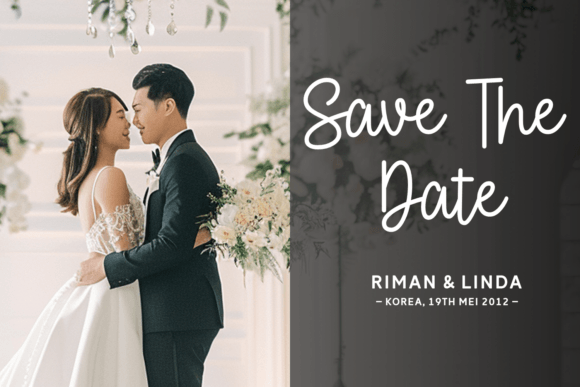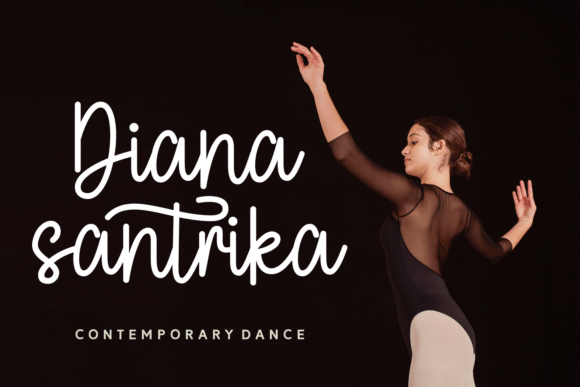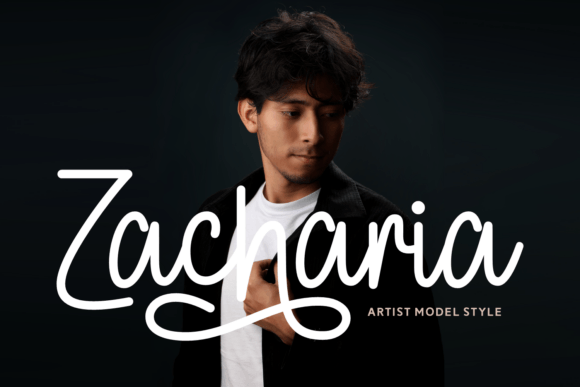
Bysta Font: Adding a Personal Touch to Your Designs
In the world of typography, fonts play a crucial role in conveying the tone and personality of a brand or design. For designers and crafters looking to add a warm, personal touch to their work, Bysta font is an excellent choice. This lively script font boasts a friendly, hand-drawn look that’s perfect for creating signs, logos, product labels, and more.
The Characteristics of Bysta Font
Bysta font is characterized by its casual, market-style feel. The letters are smooth and flowing, giving it a relaxed, welcoming vibe that’s hard to resist. The font’s hand-drawn look adds a touch of whimsy and approachability, making it ideal for designs that require a personal touch. Whether you’re creating a logo for a small business, designing a label for a craft product, or crafting a sign for a market stall, Bysta font is sure to make your design stand out.
What Makes Bysta Font Special?
So, what sets Bysta font apart from other fonts? Here are a few key features that make it a standout choice:
- Hand-drawn look: Bysta font has a unique, hand-drawn look that’s full of character and personality.
- Smooth and flowing letters: The letters in Bysta font are smooth and flowing, giving it a relaxed, welcoming vibe.
- Casual, market-style feel: Bysta font has a casual, market-style feel that’s perfect for creating signs, logos, and product labels.
- Warm and personal: Bysta font adds a warm, personal touch to any design, making it perfect for crafters and small business owners.
Using Bysta Font in Your Designs
Bysta font is incredibly versatile and can be used in a wide range of designs. Here are a few ideas to get you started:
- Signs: Use Bysta font to create eye-catching signs for your market stall, store, or event.
- Logos: Bysta font is perfect for creating logos for small businesses, craft products, or personal brands.
- Product labels: Add a personal touch to your product labels with Bysta font.
- Stationery: Use Bysta font to create custom stationery, such as business cards, letterheads, and invoices.
Tips for Using Bysta Font Effectively
Here are a few tips for using Bysta font effectively in your designs:
- Keep it simple: Bysta font is best used in simple, straightforward designs. Avoid clutter and keep your design clean and easy to read.
- Experiment with colors: Bysta font looks great in a range of colors, so don’t be afraid to experiment and find the perfect hue for your design.
- Use it sparingly: While Bysta font is beautiful, it can be overwhelming if used too much. Use it sparingly to add a touch of personality to your design.
Bysta font is a lively script font with a friendly, hand-drawn look that’s perfect for adding a warm, personal touch to your designs. With its casual, market-style feel and smooth, flowing letters, Bysta font is ideal for signs, logos, product labels, and more. Whether you’re a designer or crafter, Bysta font is sure to become a favorite in your toolkit.
So why not give Bysta font a try? With its unique character and versatility, it’s sure to add a touch of personality to your designs and help you stand out from the crowd.